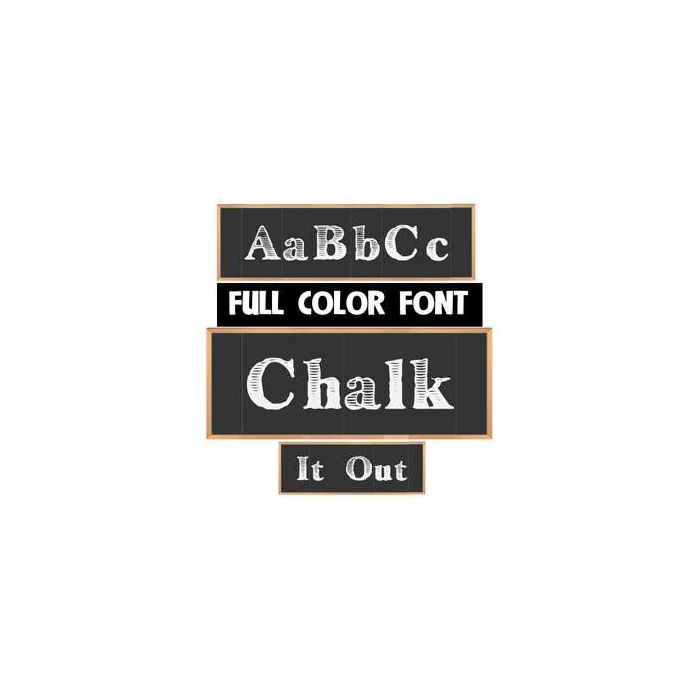
This full-color font features chalked letters on a chalkboard. Use brackets to make chalkboard ends and use the underscore to create blank chalkboard. This font works best for titles, displays, posters and more. Please note color fonts will show as black in non compatible programs. This font type is compatible with Silhouette Studio.